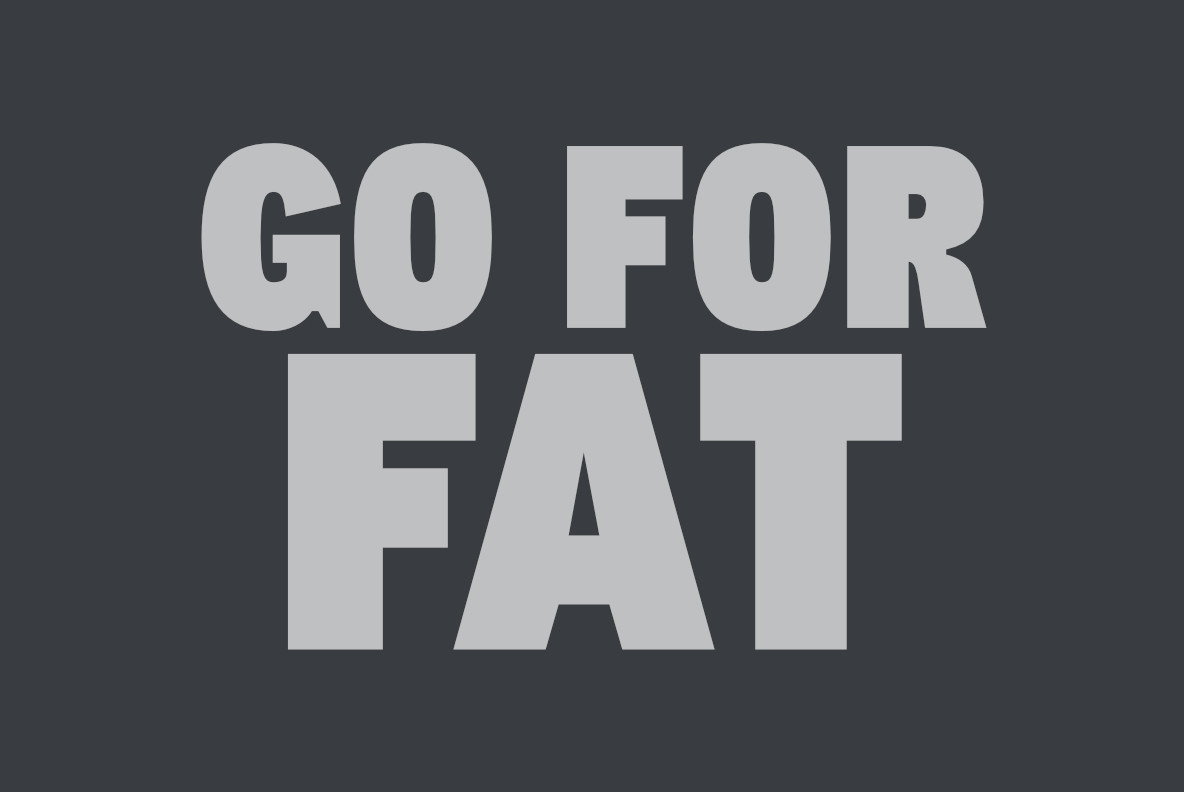
CA Cula Superfat Font
CA Cula Superfat is a distinctive fatty typeface, mainly intended for display purposes. You will find out that it looks best in extremely large sizes, or in very small ones. Whatever you do, avoid the ordinary and expectable.
It’s not only beautifully fat, it’s also useful. A central european character set, loads of ligatures, old-style and lining figures make it a versatile companion in the daily struggle for outstanding typography.